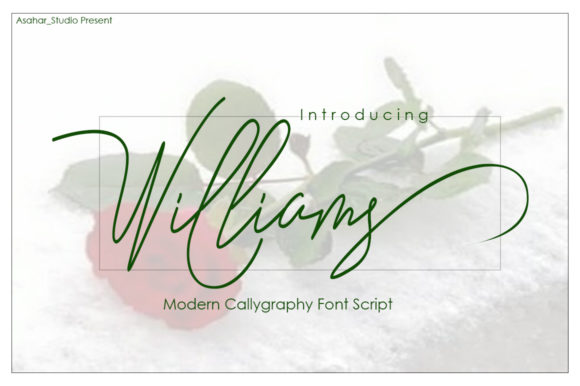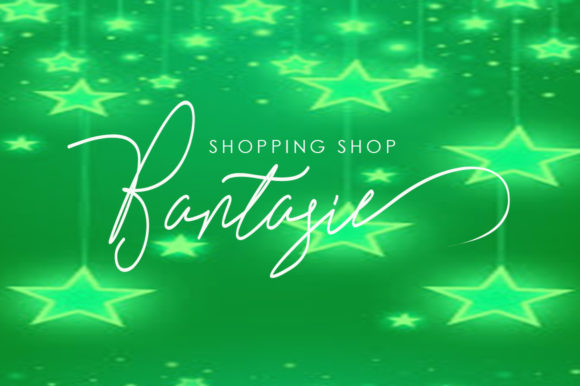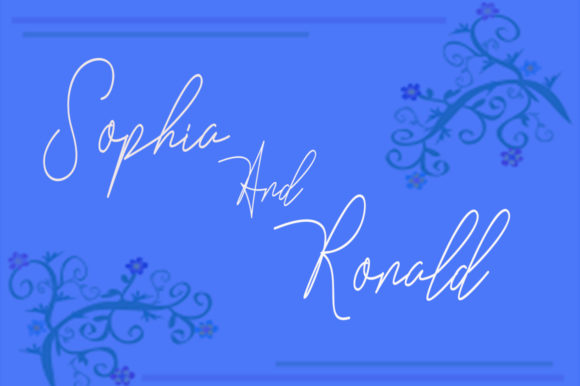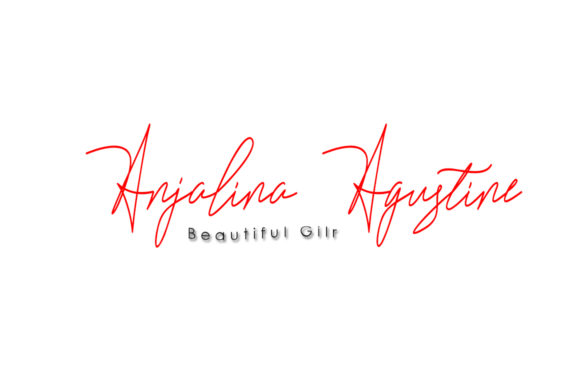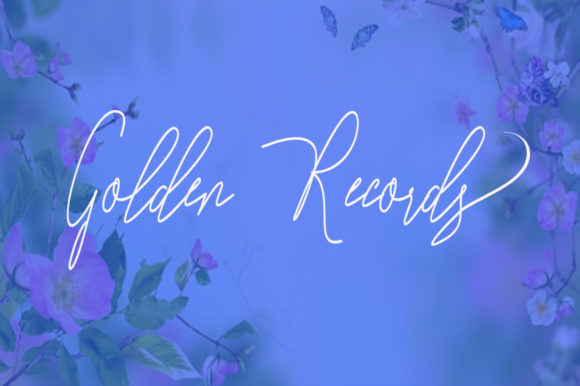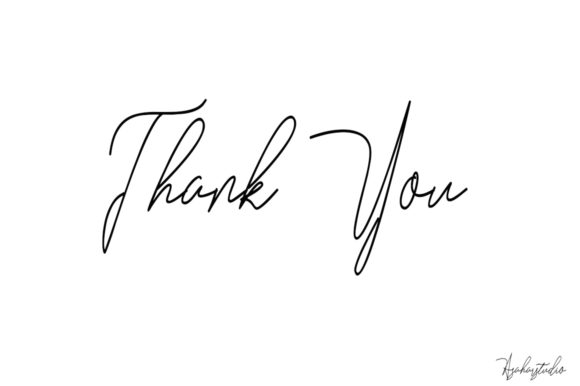
Williams Font
About Williams Font
The Williams is a bold script font with a beautiful and unique style. Its combining modern calligraphy with an elegant calligraphy style.